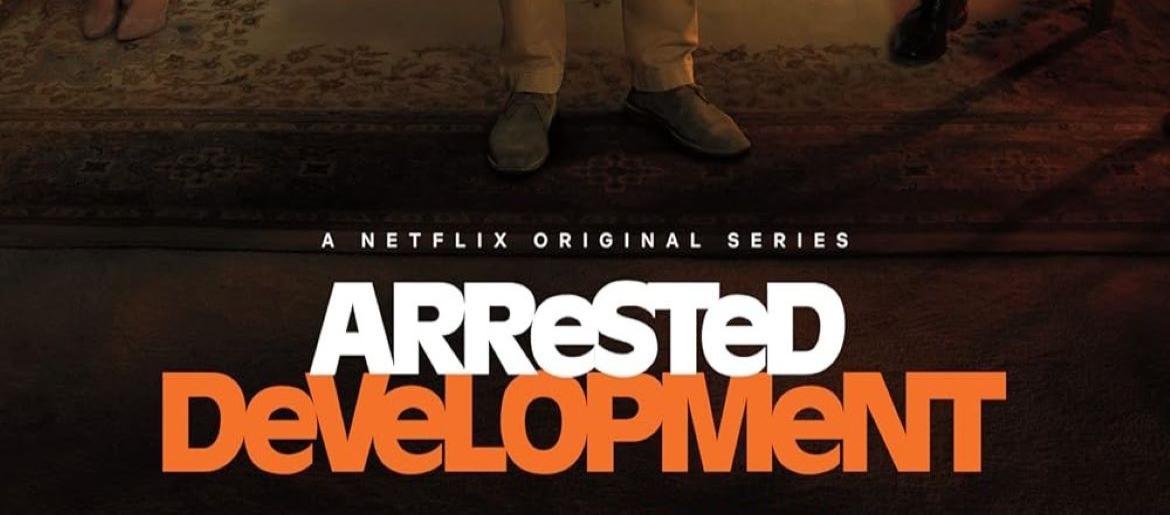
Arrested Development Font
The Arrested Development Font perfectly reflects the quirky, offbeat charm of the series. Based on Franklin Gothic Heavy with influences from Antique Olive Bold, its chunky, blocky letters give the logo a bold and confident presence. The uneven stacking of the words adds a playful, slightly chaotic energy, echoing the show’s dysfunctional Bluth family dynamics.
About Arrested Development
Arrested Development became a cult classic through its witty writing, clever running gags, and unforgettable ensemble of characters. Bold, a little messy, and full of personality, the font mirrors the show’s humor and eccentricity, making it instantly recognizable to fans and designers alike.